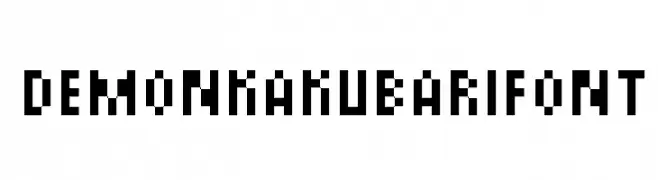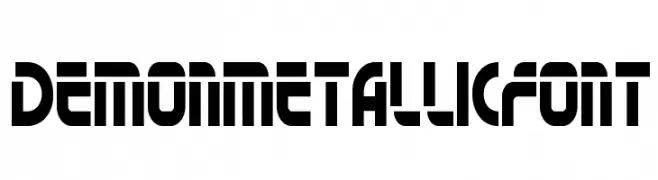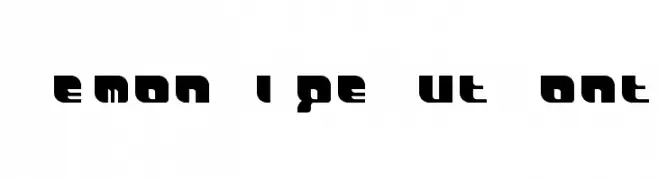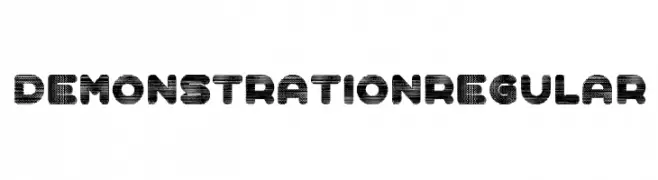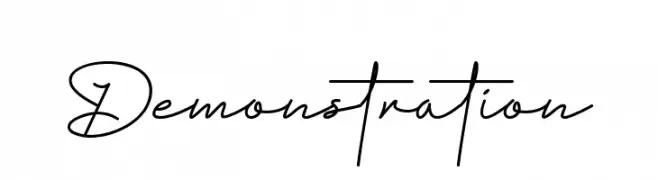
A bold, italicized font with high contrast and a modern, dynamic style.
A pixelated, retro-style font with a blocky, digital appearance.
A bold, futuristic font with a metallic, geometric design.
A bold, gothic-inspired font with sharp edges and smooth curves.
A cursive, handwritten-style font with elegant, flowing strokes.
A bold, rounded font with a halftone texture, offering a modern and cohesive look.
A bold, geometric font with a futuristic and modern design.
A bold, futuristic font with geometric shapes and a modern aesthetic.
A bold, geometric font with a futuristic and edgy design.